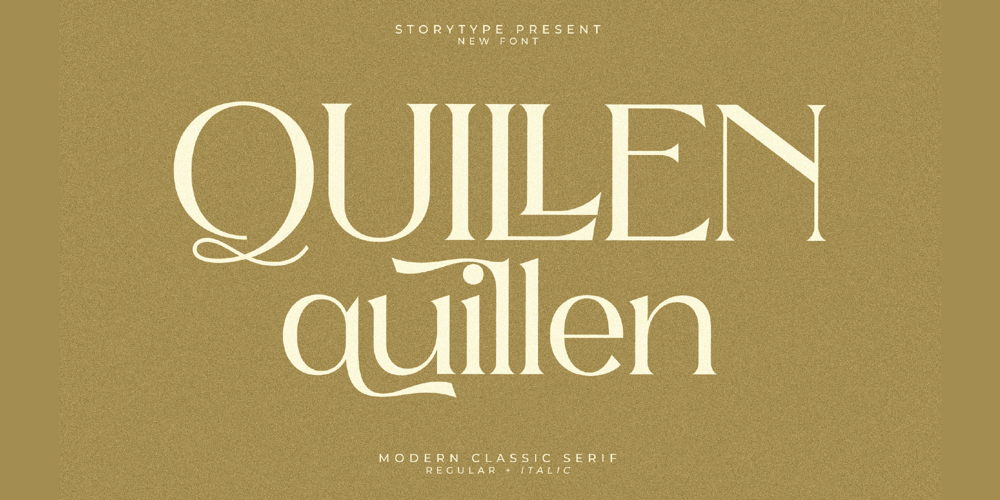
Quillen Font Family was designed by Heru Utama Putra and published by Letterena Studios. Quillen contains 2 styles and family package options. Quillen is a classy serif font with visual elegance, and smooth curves, making your work look really attractive. This font is great for logo design, social media, book titles, or anything that needs a stylish touch. Quillen is PUA encoded which means you can access all the glyphs and ligatures with ease!